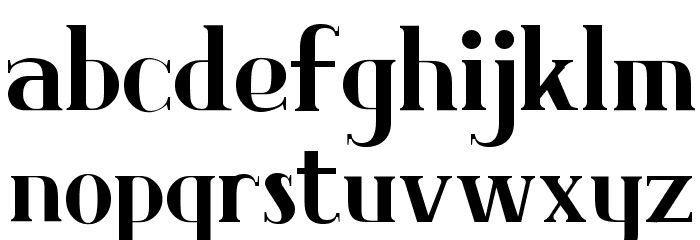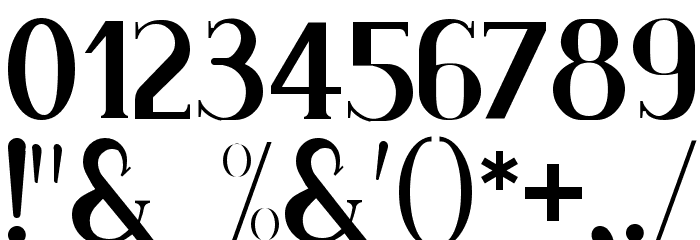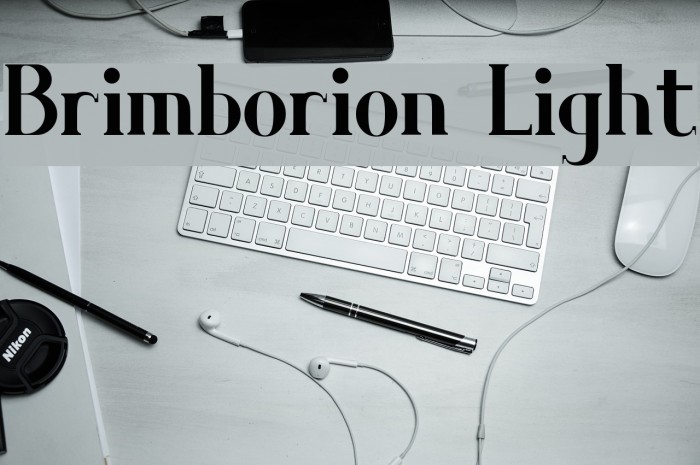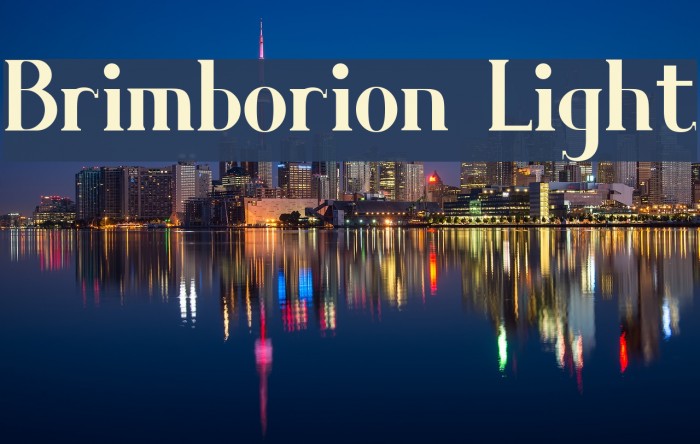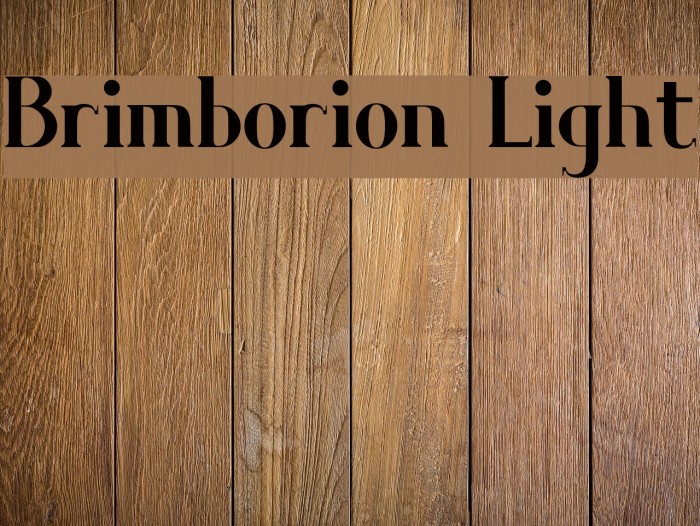
Brimborion Light Font
This font exhibits a refined and elegant style, characterized by its high contrast between thick and thin strokes. The serifs are pronounced, adding a touch of sophistication and classic appeal. The uppercase letters are tall and commanding, while the lowercase letters maintain a balanced and harmonious appearance. The numerals are distinct and easily readable, with a slight flair that complements the overall design. Special characters are well-integrated, maintaining the font's cohesive aesthetic. This font is versatile, suitable for both formal and creative applications.
A high-contrast, elegant serif font with pronounced serifs and a classic appeal.
- Proposed Projects: Ideal for editorial design, book covers, luxury branding, and formal invitations.
- Overall Style: Classic